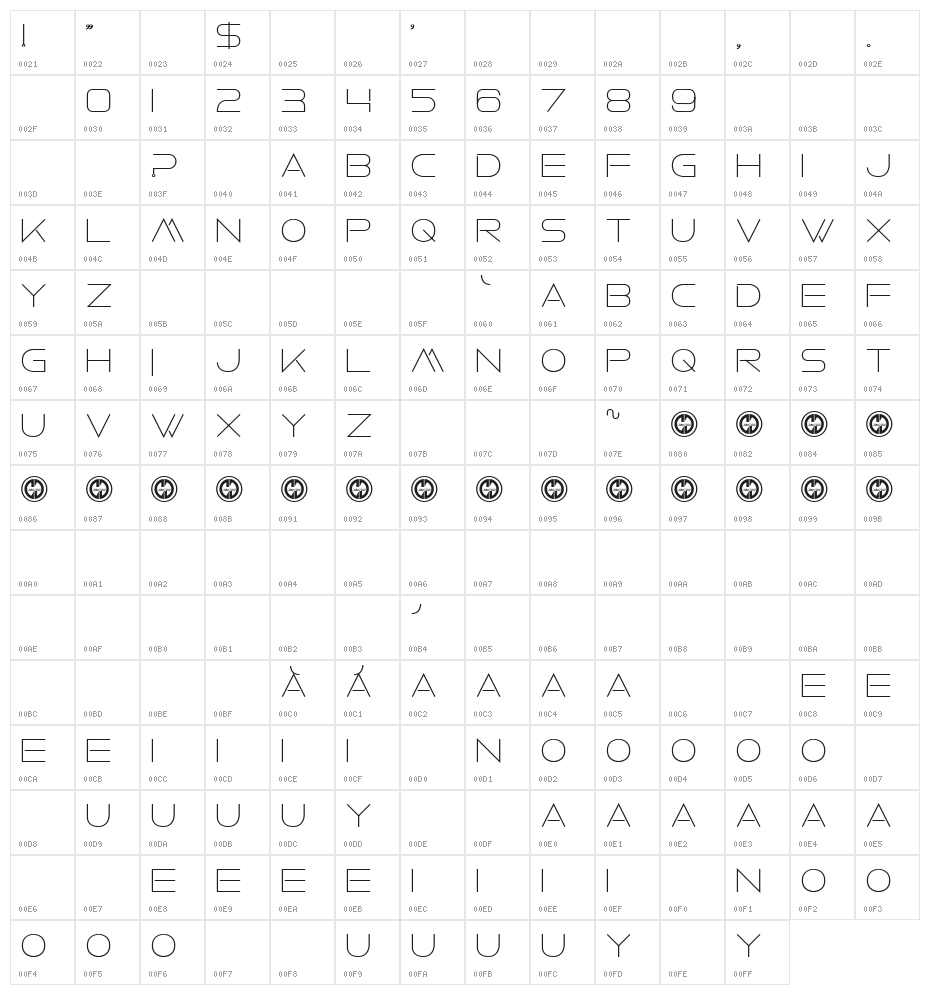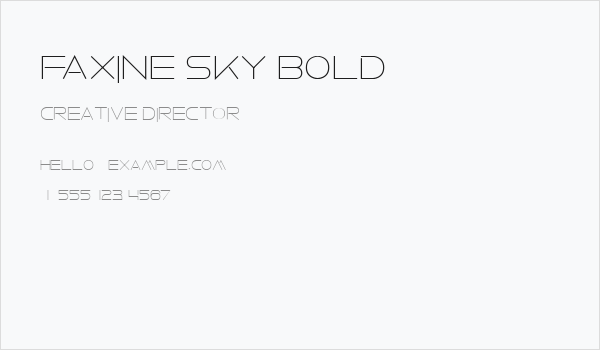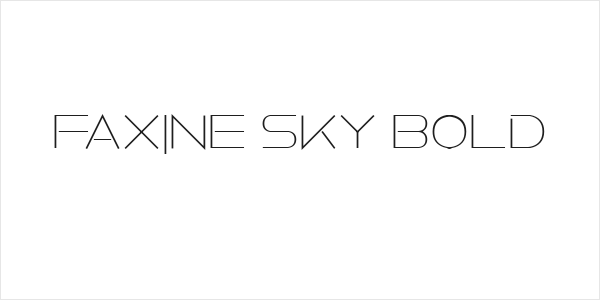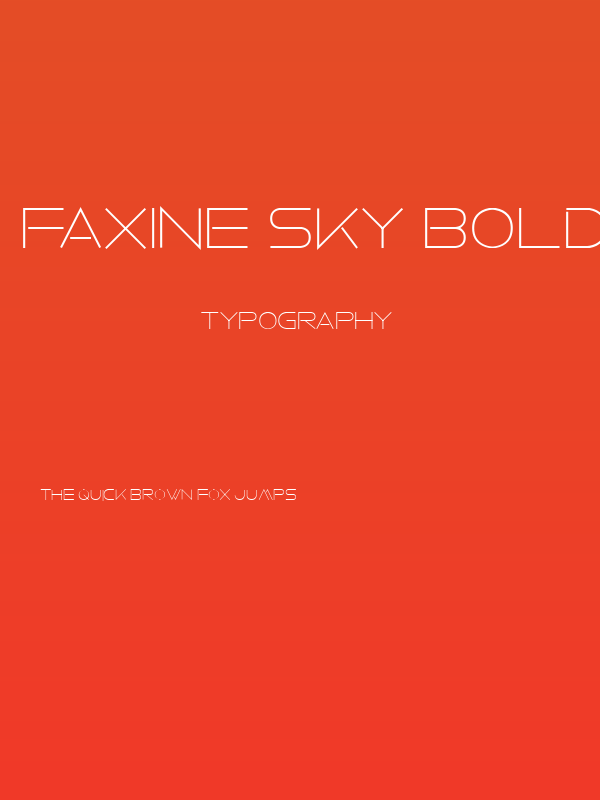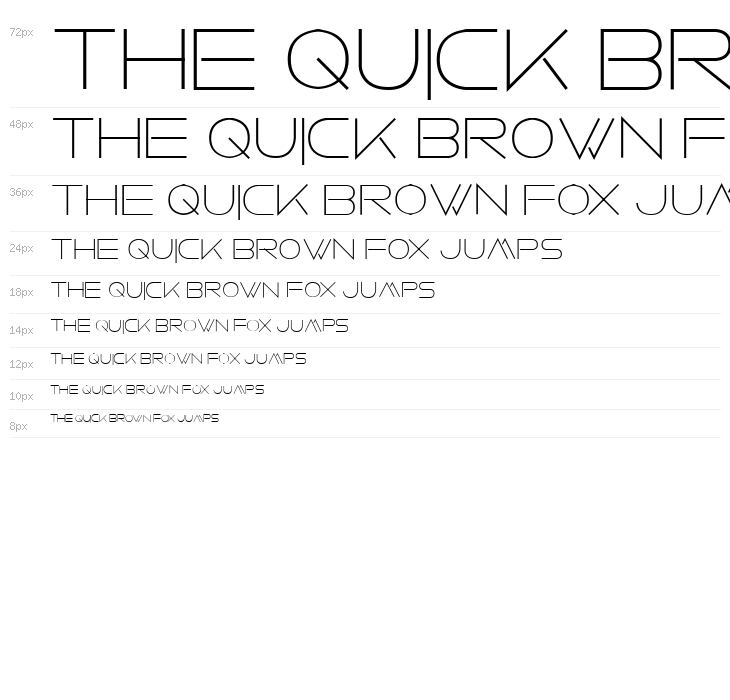
Faxine Sky Bold Font
Faxine Sky Bold Description
This font features a sleek, modern design with geometric elements and a futuristic feel. The characters are constructed with clean, straight lines and sharp angles, giving it a minimalist and sophisticated appearance. The uppercase and lowercase letters maintain a consistent style, with a uniform stroke width that adds to its contemporary aesthetic. The numerals and special characters are designed to complement the alphabet, ensuring a cohesive look across all text. This font is ideal for projects that require a modern and cutting-edge look.
| Use Case | Headlines, Logos, Digital Interfaces |
| Proposed Projects | Ideal for technology branding, modern advertising, digital interfaces, and futuristic design projects. |